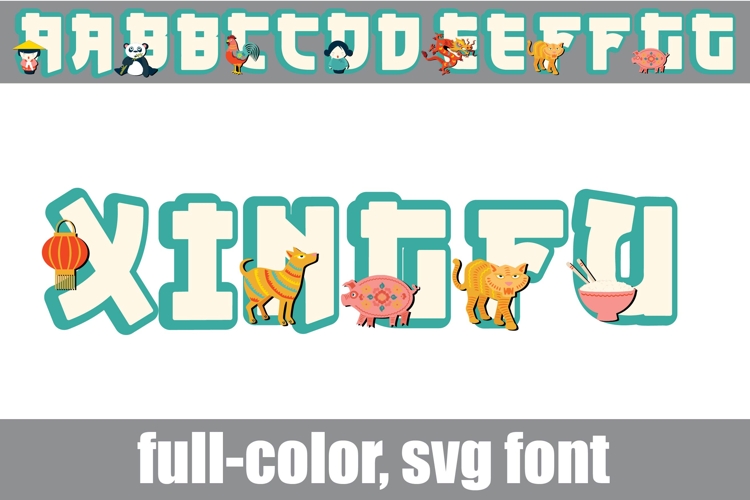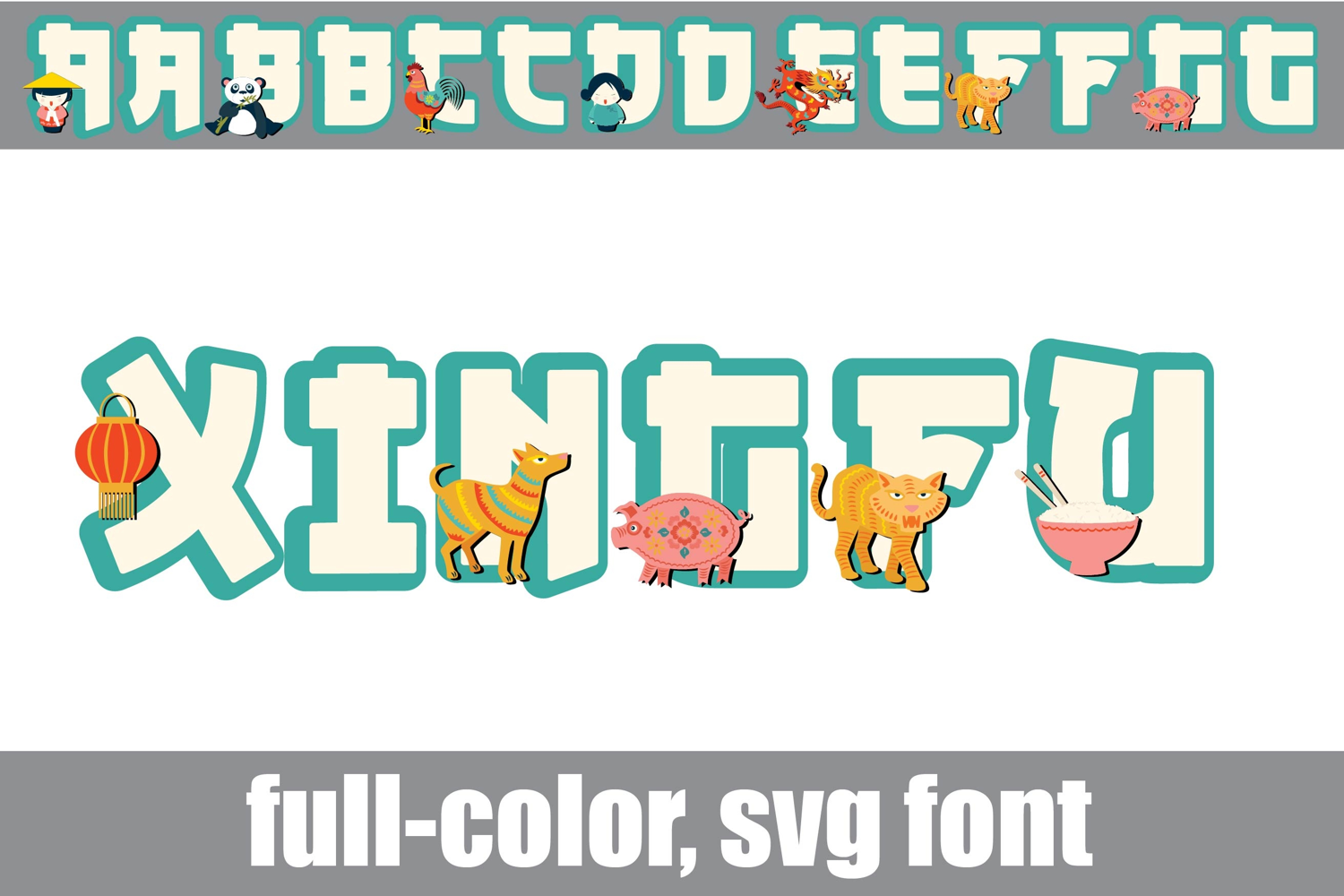
Xingfu Color Font
This full-color, Eastern Asian font features Chinese elements throughout. There is an alt case of additional colors of each letter that you can access through your system's character map.